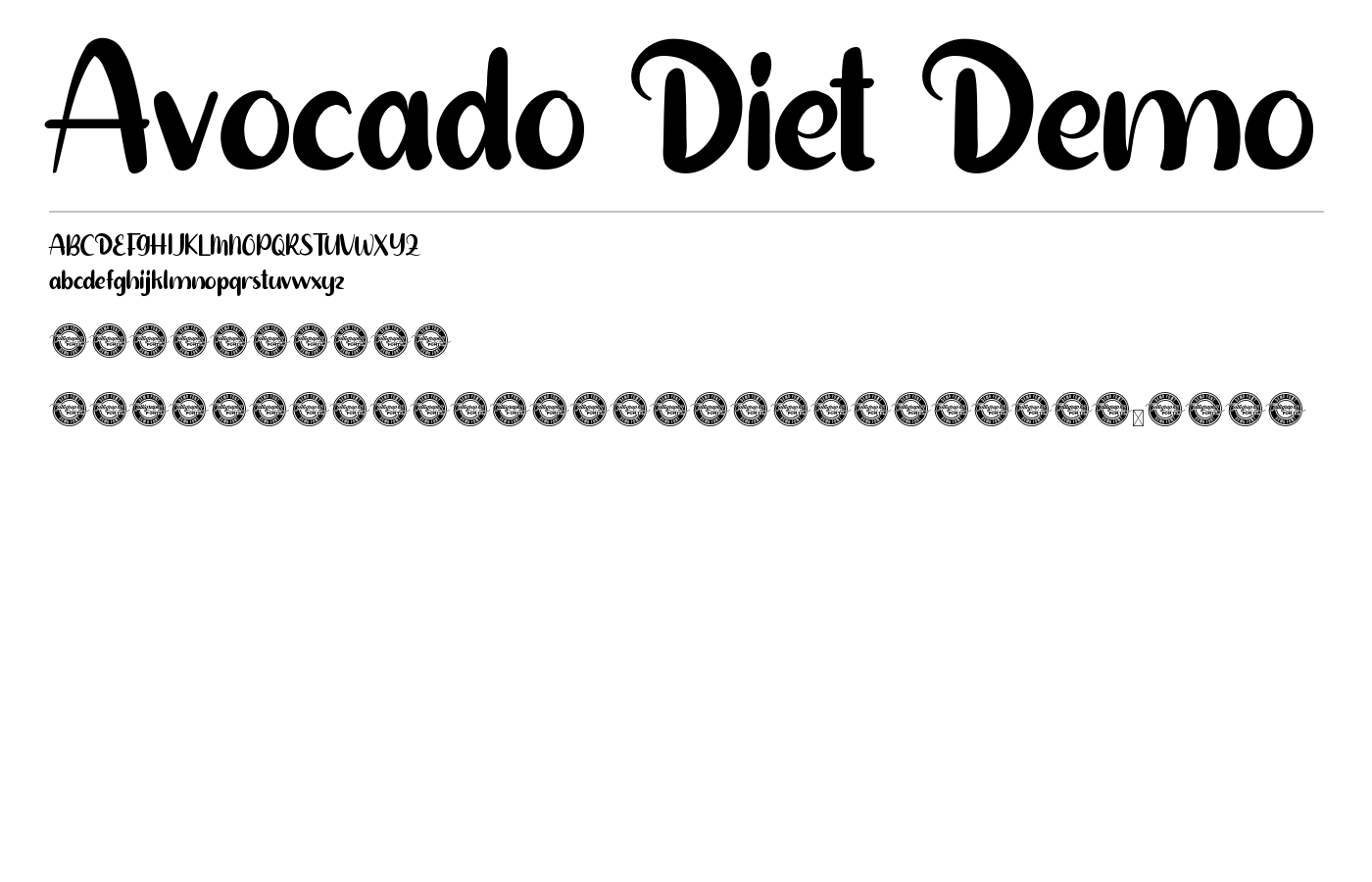
Avocado Diet Demo is a playful, handwritten-style font with a casual and friendly feel. It features a medium weight with rounded, soft strokes and a lively, organic texture that makes it perfect for lighthearted branding, packaging, and creative projects. Its unique letterforms and balanced spacing give it a charming, approachable personality that works well for headlines and logos aiming to convey warmth and creativity.
Avocado Diet Demo Font
About Avocado Diet Demo Font
| Font family | Avocado Diet Demo Font |